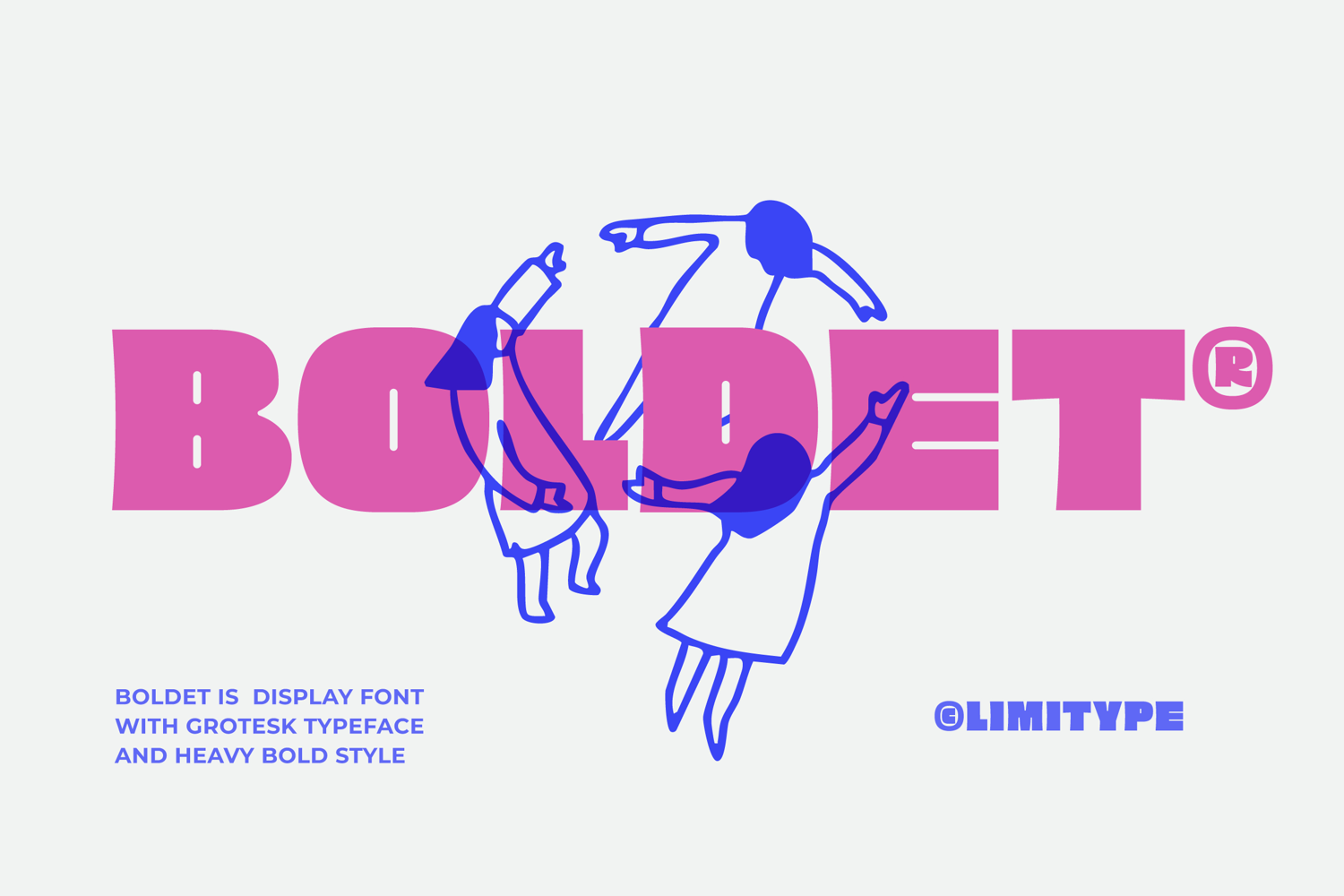
Boldet - Bold Font
Boldet font comes in a grotesk style that is bold, solid, and full of character, bringing out an expressive blend of retro and modern vibes. Its block shaped forms with subtle curves give it a funky, playful, and energetic feel, making it a perfect choice for titles, posters, or designs that require strong attention and a striking visual presence.